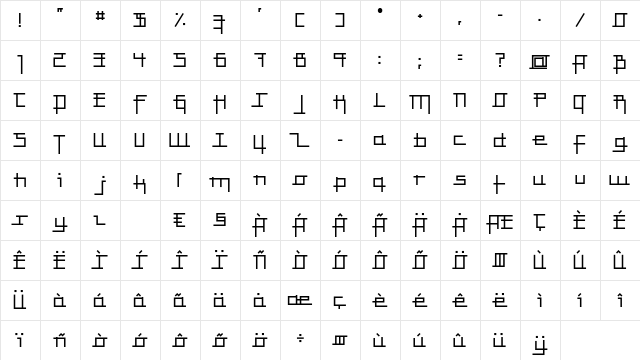
Anlinear LT Std Bold
Design Context for Anlinear LT Std Typeface
Anlinear LT Std is a composed and adaptable typeface that performs quietly and consistently across a wide range of design contexts. The heavy weight commands attention and anchors typographic hierarchies.